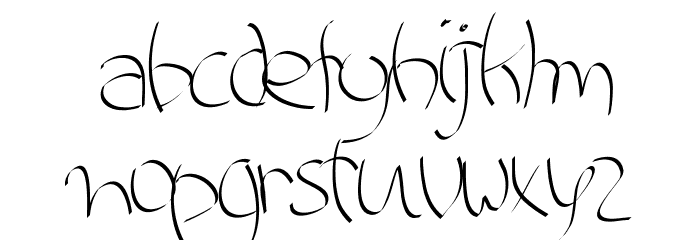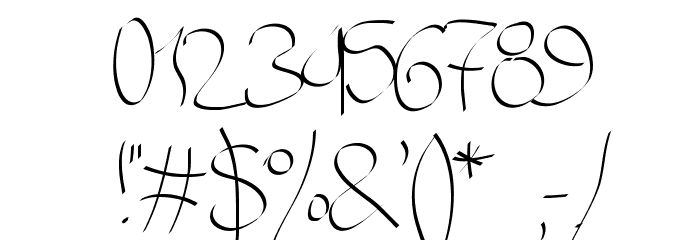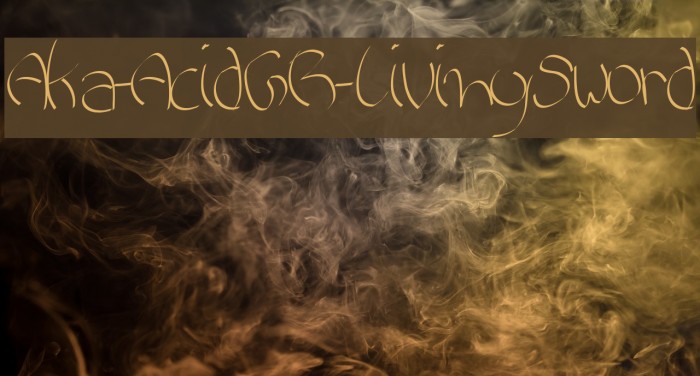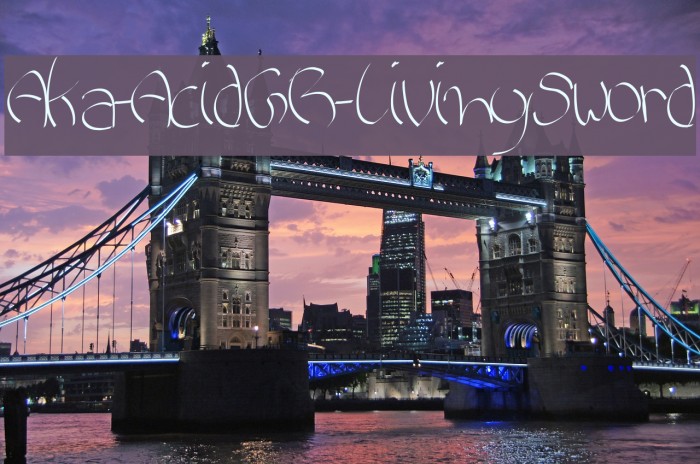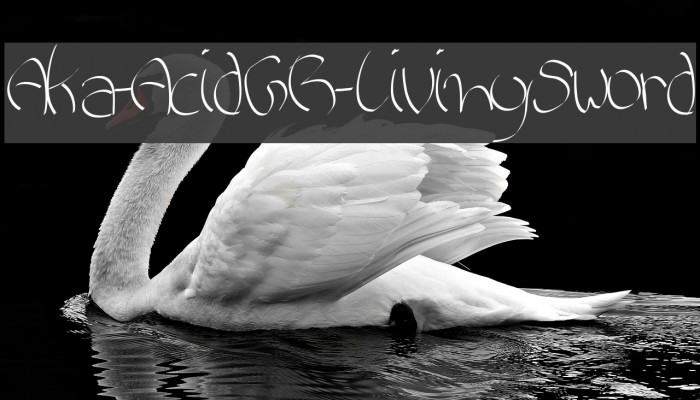
Aka-AcidGR-LivingSword Font
This font exhibits a unique, artistic flair with its flowing, calligraphic strokes. The characters are crafted with an elegant, hand-drawn style that combines both sharp and smooth curves, creating a dynamic and lively appearance. The uppercase letters are bold and expressive, while the lowercase letters maintain a consistent fluidity. Numbers and special characters are designed with the same artistic touch, ensuring a cohesive look across all elements. The overall design suggests a sense of movement and creativity, making it suitable for projects that require a personal and artistic touch.
An artistic, calligraphic font with flowing, dynamic strokes.
- Proposed Projects: Ideal for creative projects such as invitations, artistic branding, logos, and decorative posters.
- Use Case: Logos, Decorative text, Artistic projects